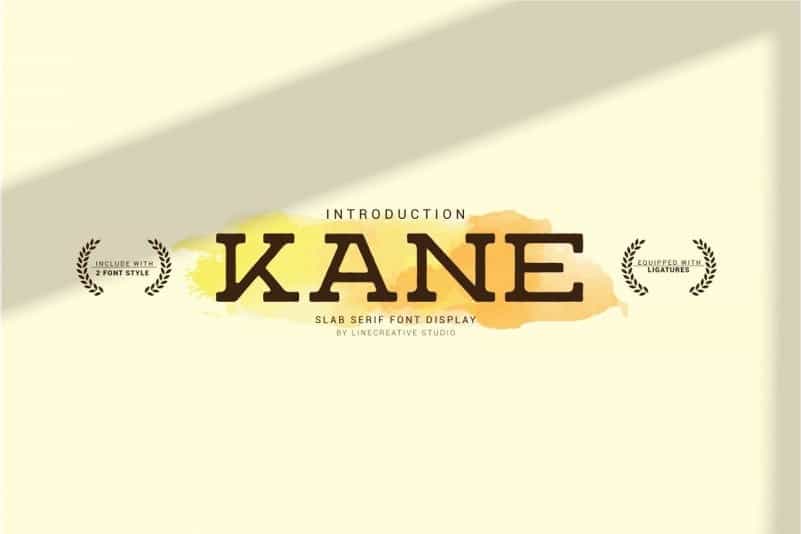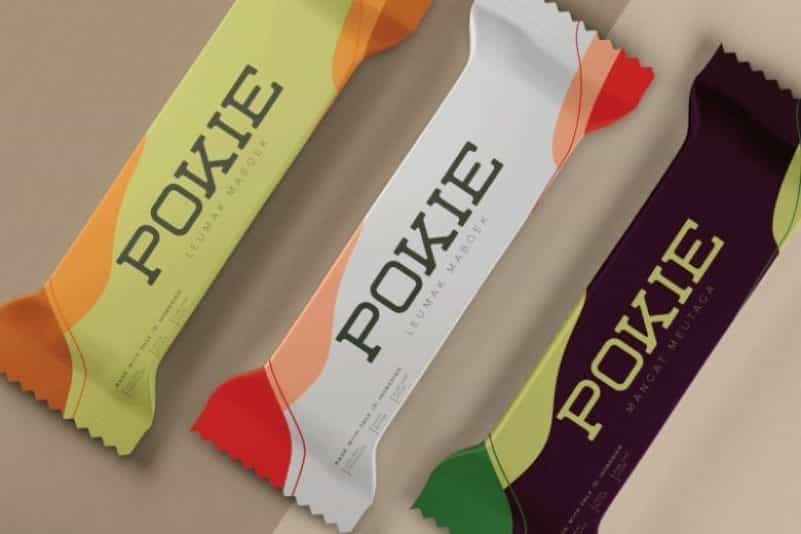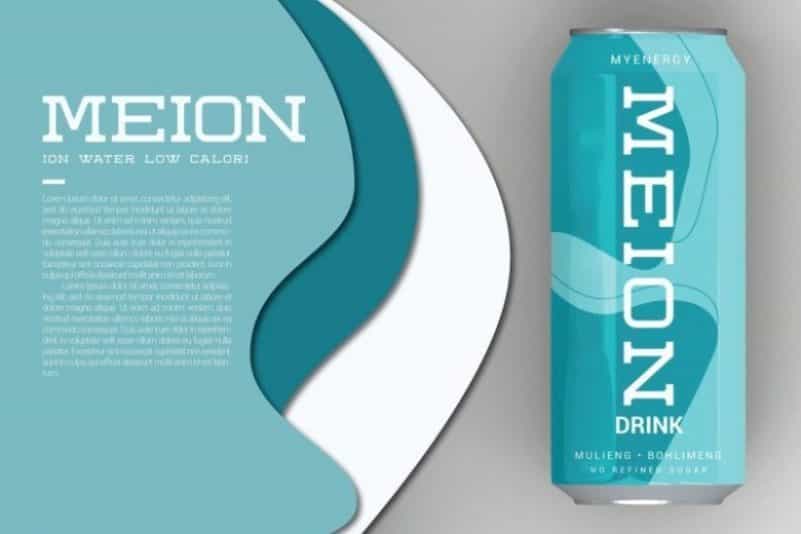
Kane is a slab serif font that was designed with a mono line concept to display the font in its style versatility. Taking its design cue from magazines; Kane has straight lines giving it a neat look suitable for use in editorial or corporate environment.